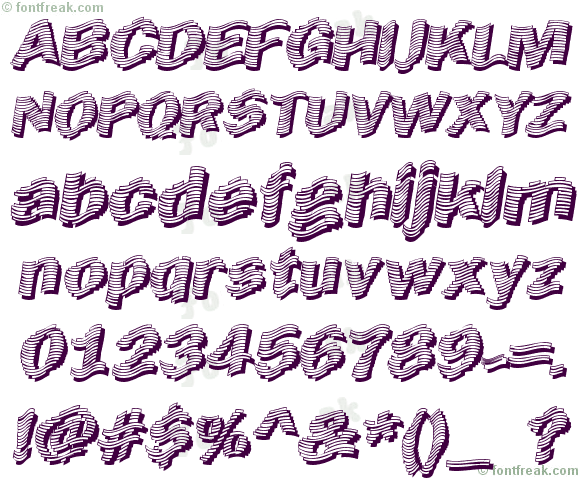
Early Tickertape
About Early Tickertape
The Early Tickertape font by Gemfonts is a distinctive display typeface that captures the essence of retro design. This font is characterized by its playful, wavy strokes that evoke the feel of vintage tickertape machines, making it a unique addition to any typographic collection. With a medium stroke weight and minimal contrast, Early Tickertape offers a whimsical appearance that is both inviting and engaging. The spacing is thoughtfully designed to maintain clarity while allowing the decorative elements to shine, ensuring that text remains legible even in longer formats.
This font is perfect for a variety of creative applications. Designers looking to add a nostalgic touch to wedding invitations will find Early Tickertape an excellent choice, as it conveys warmth and charm. It is equally well-suited for movie posters, where its vintage vibe can evoke a sense of classic cinema. Additionally, restaurant menus can benefit from its eye-catching style, drawing diners in with a sense of fun and creativity. Small business owners seeking to create memorable branding will also appreciate its unique flair, making it ideal for logos and promotional materials. Content creators looking to attract attention on social media platforms can leverage this font to enhance their visuals and stand out in crowded feeds.